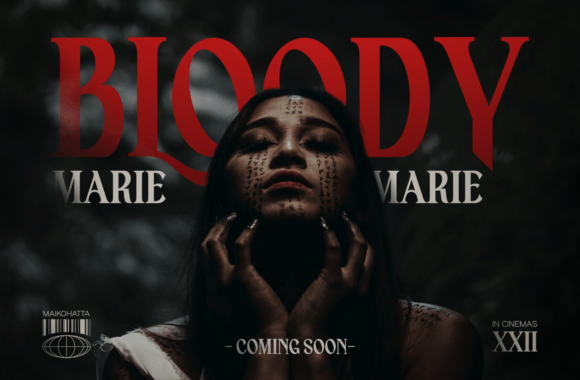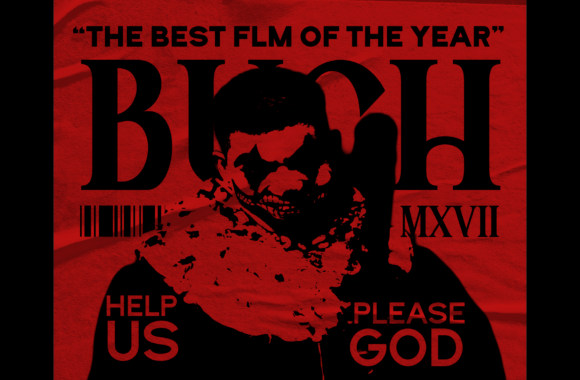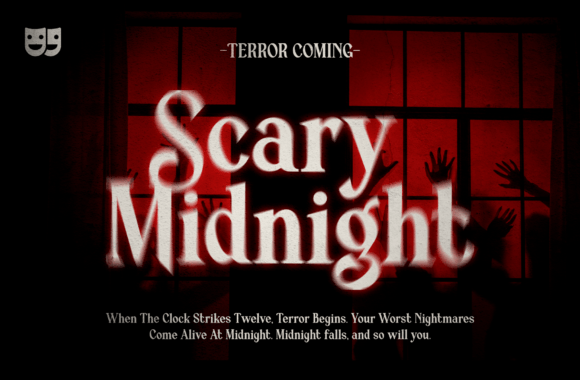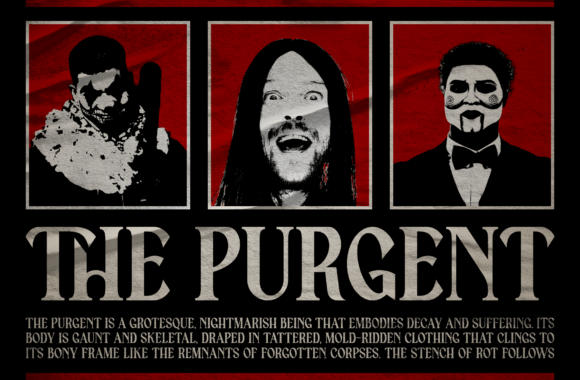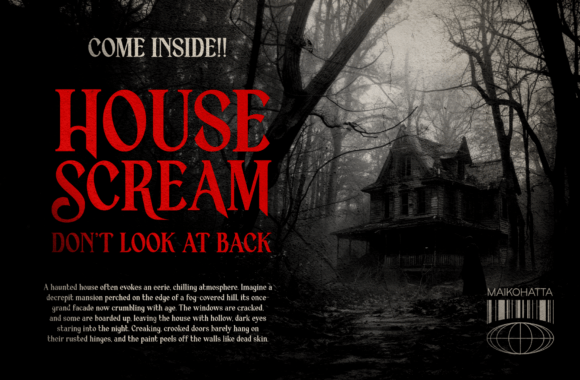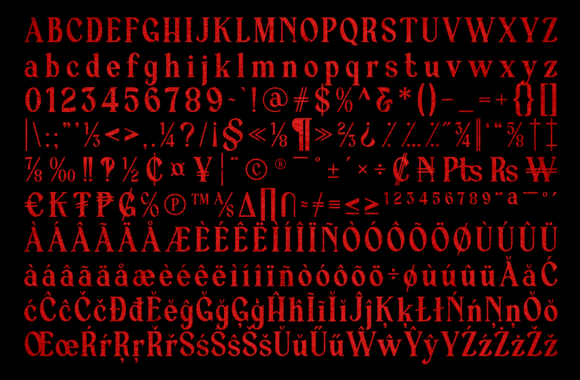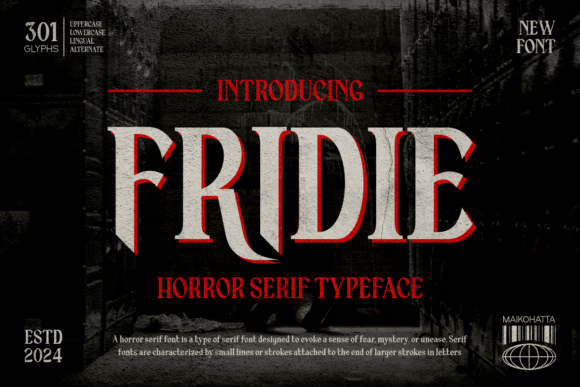
Introducing Fridie Font: The Ultimate Horror Serif Typeface for Halloween
Are you ready to add a spooky touch to your designs and create a haunting atmosphere that will leave a lasting impression on your audience? Look no further than Fridie Font, our new horror serif typeface specifically designed to capture the spirit of Halloween celebrations. In this article, we’ll dive into the world of Fridie Font and explore its features, uses, and benefits for designers and crafters.
What is Fridie Font?
Fridie Font is a unique and terrifyingly awesome typeface that embodies the eerie and mysterious essence of Halloween. This horror serif font is carefully crafted to evoke a sense of fear, excitement, and thrill, making it perfect for various Halloween-related projects. Whether you’re designing party invitations, posters, merchandise, greeting cards, warning signs, or website themes, Fridie Font is sure to add a chilling touch to your creations.
Key Features of Fridie Font
- Horror Serif Design: Fridie Font boasts a distinctive serif design that exudes a spooky and eerie feel, perfect for creating a haunting atmosphere in your designs.
- Halloween-themed: This font is specifically designed for Halloween-related projects, making it an ideal choice for designers and crafters who want to create festive and thematic designs.
- Versatile: Fridie Font can be used in a wide range of applications, from party invitations and posters to merchandise designs, greeting cards, warning signs, and website themes.
- Easy to Use: Our font is carefully crafted to be easy to read and use, making it perfect for designers and crafters of all skill levels.
Uses of Fridie Font
Fridie Font is an incredibly versatile typeface that can be used in various Halloween-related projects, including:
- Party Invitations: Create spooky and inviting party invitations that will set the tone for a howling good time.
- Posters and Flyers: Design eye-catching posters and flyers that will grab attention and create a sense of excitement and fear.
- Merchandise Designs: Add a chilling touch to your merchandise designs, such as t-shirts, mugs, and phone cases.
- Greeting Cards: Create spooky and heartfelt greeting cards that will leave a lasting impression on your friends and family.
- Warning Signs: Design warning signs that will add a touch of eeriness and foreboding to your designs.
- Website Themes: Use Fridie Font to create a spooky and immersive website theme that will transport your visitors to a world of horror and excitement.
Benefits of Using Fridie Font
By using Fridie Font in your designs, you’ll enjoy several benefits, including:
- Unique and Eye-catching Designs: Fridie Font will add a touch of uniqueness and eeriness to your designs, setting them apart from the crowd.
- Time-saving: Our font is carefully crafted to be easy to use, saving you time and effort in your design process.
- Professional-looking Designs: Fridie Font is designed to create professional-looking designs that will leave a lasting impression on your audience.